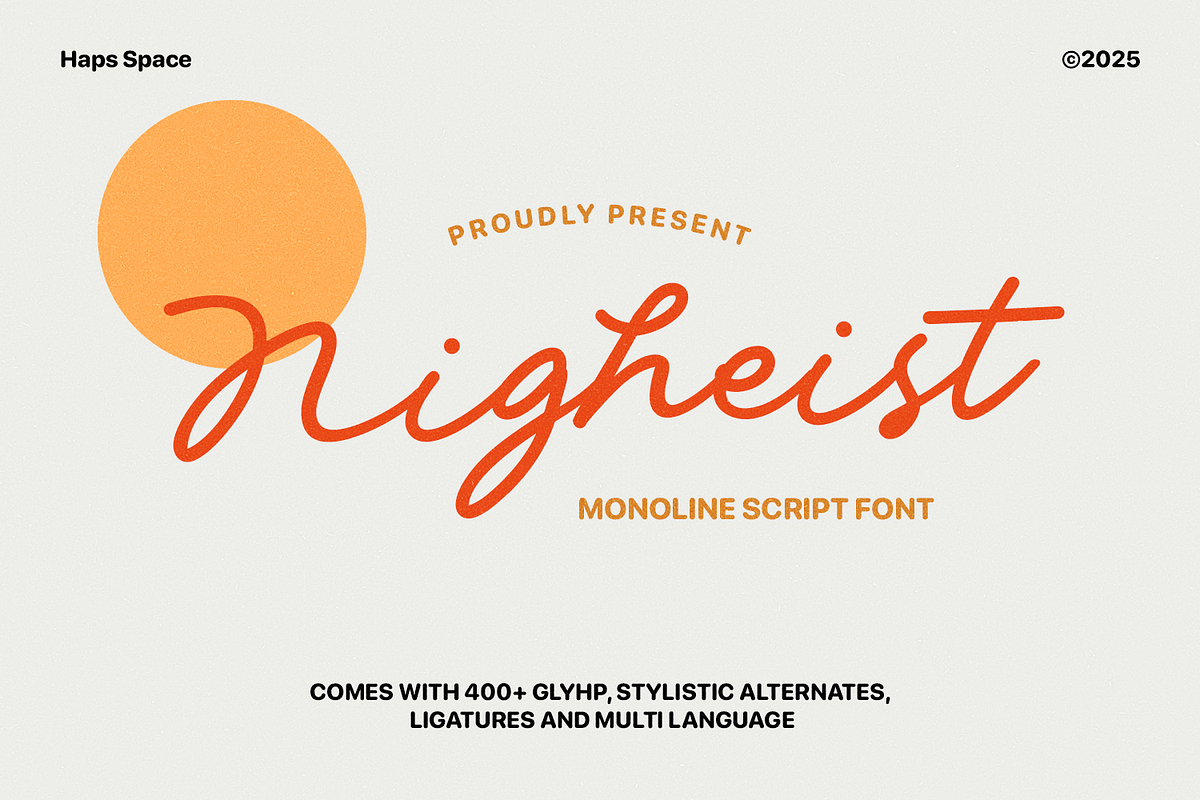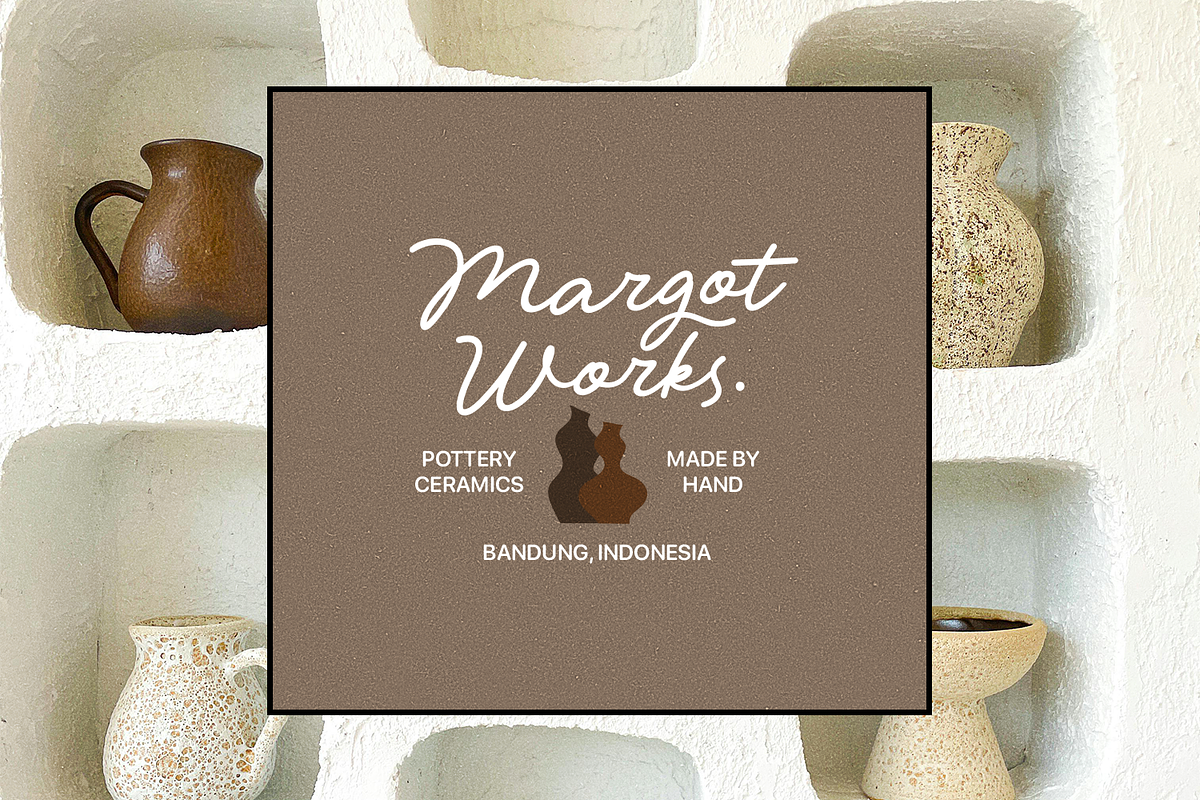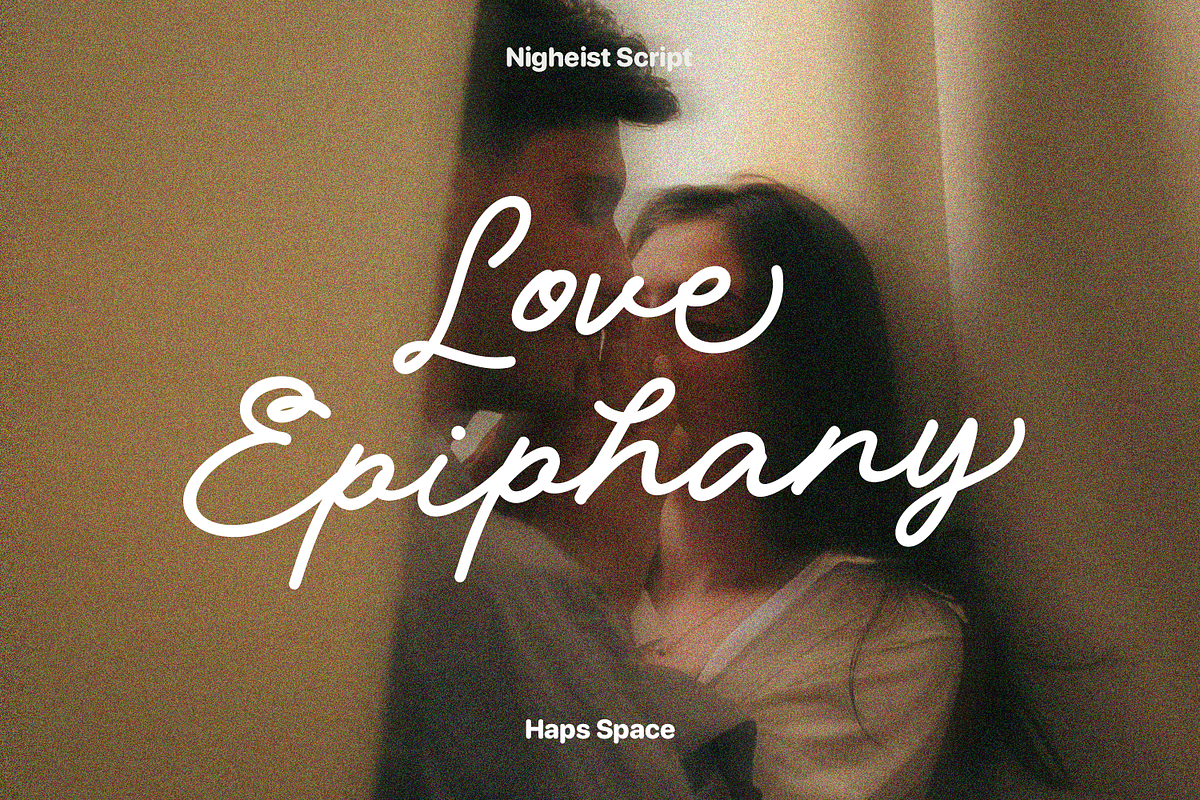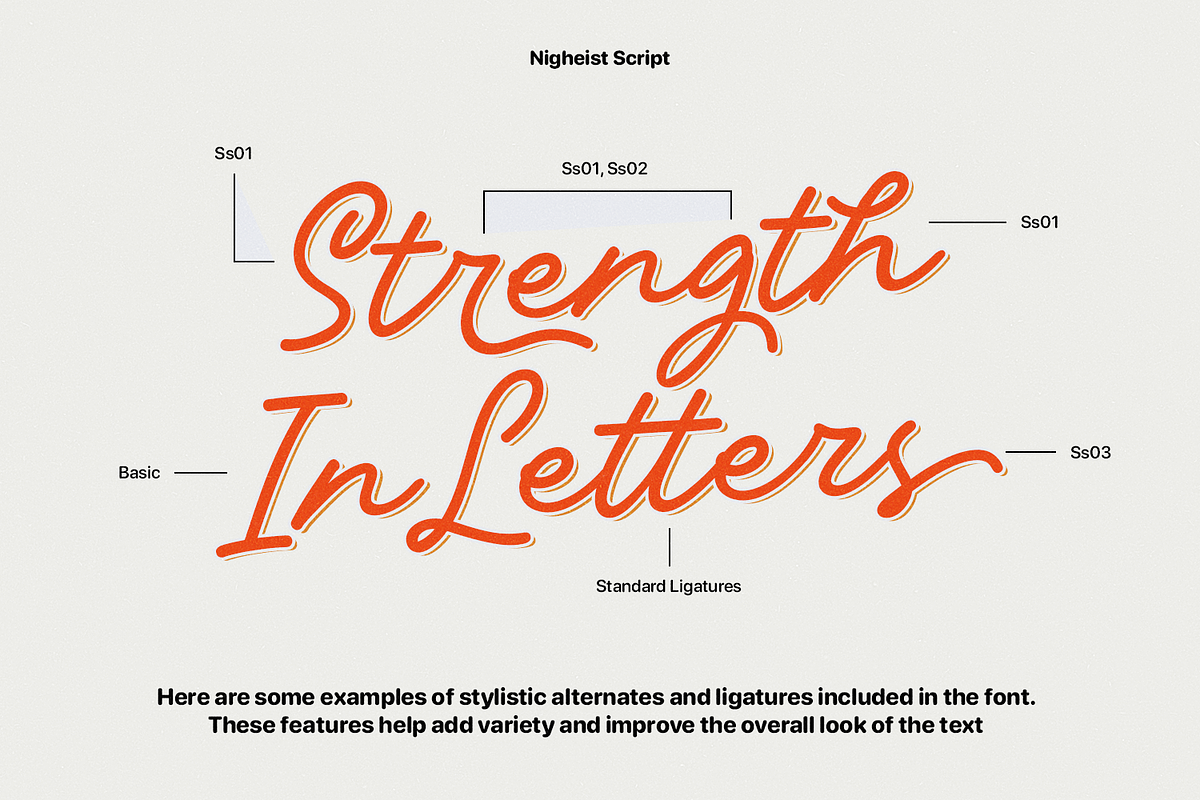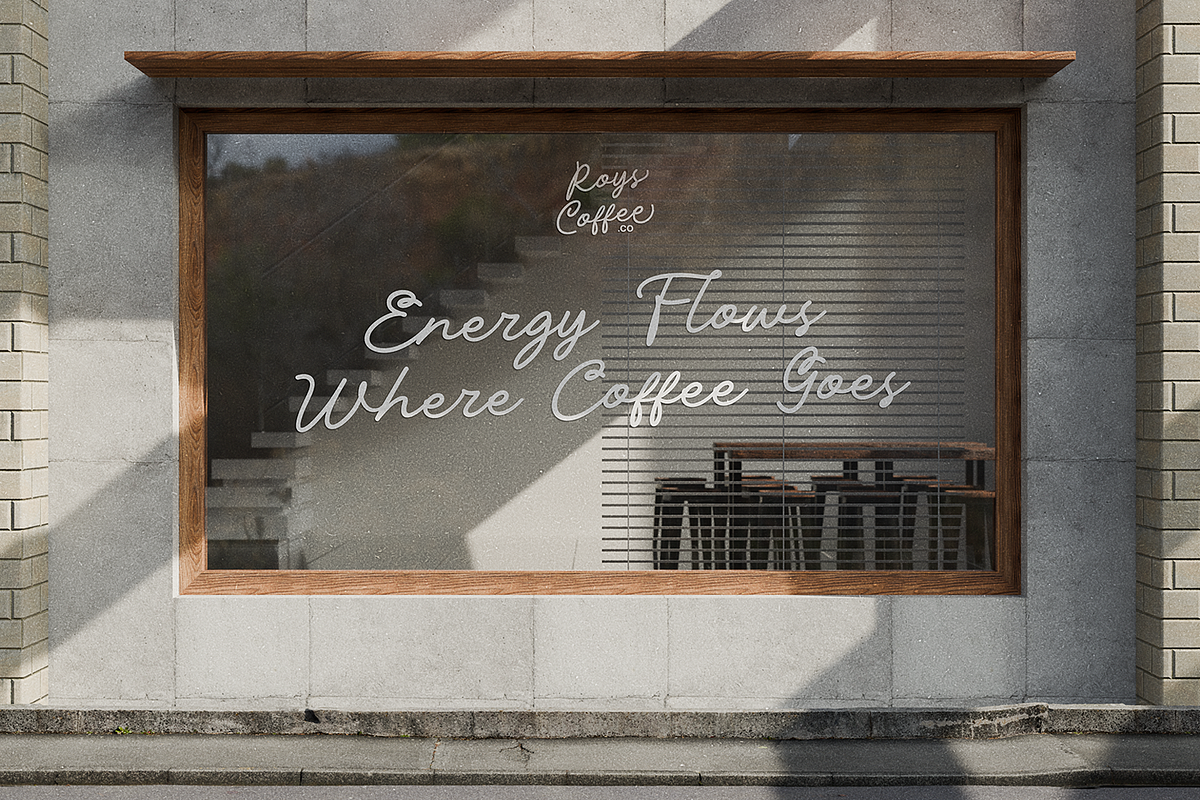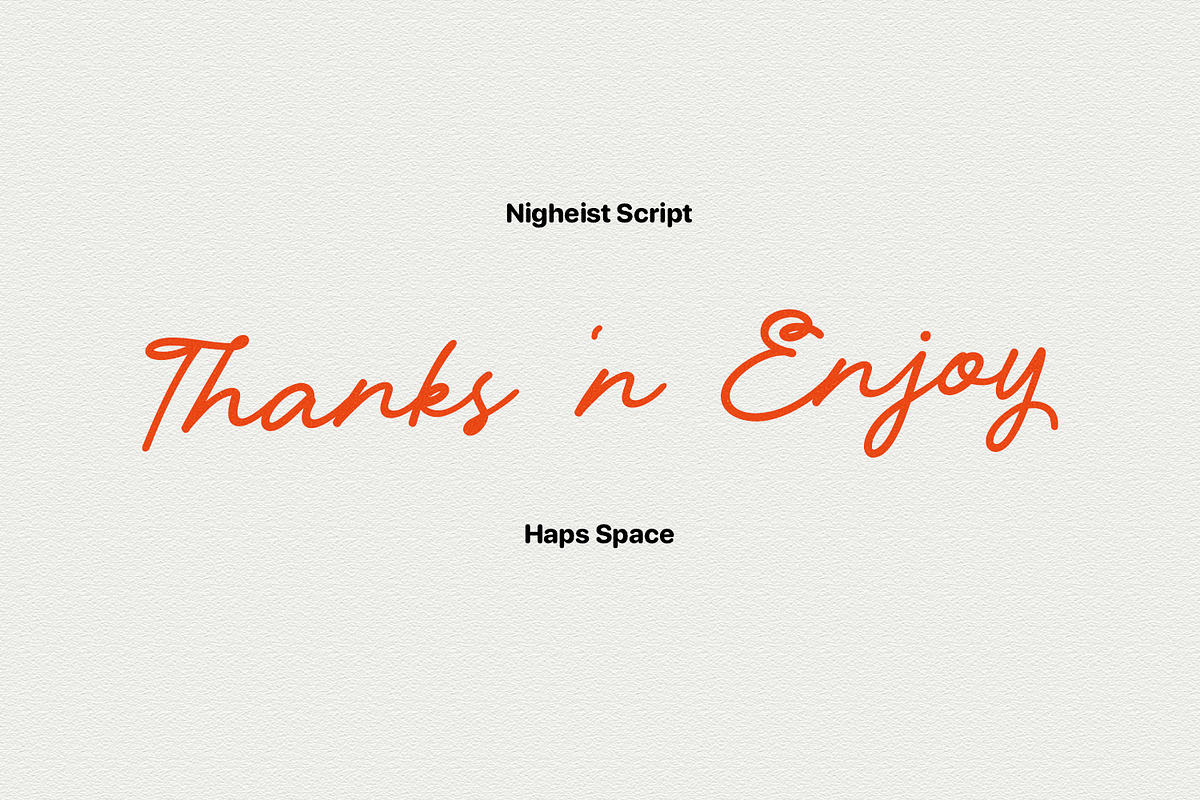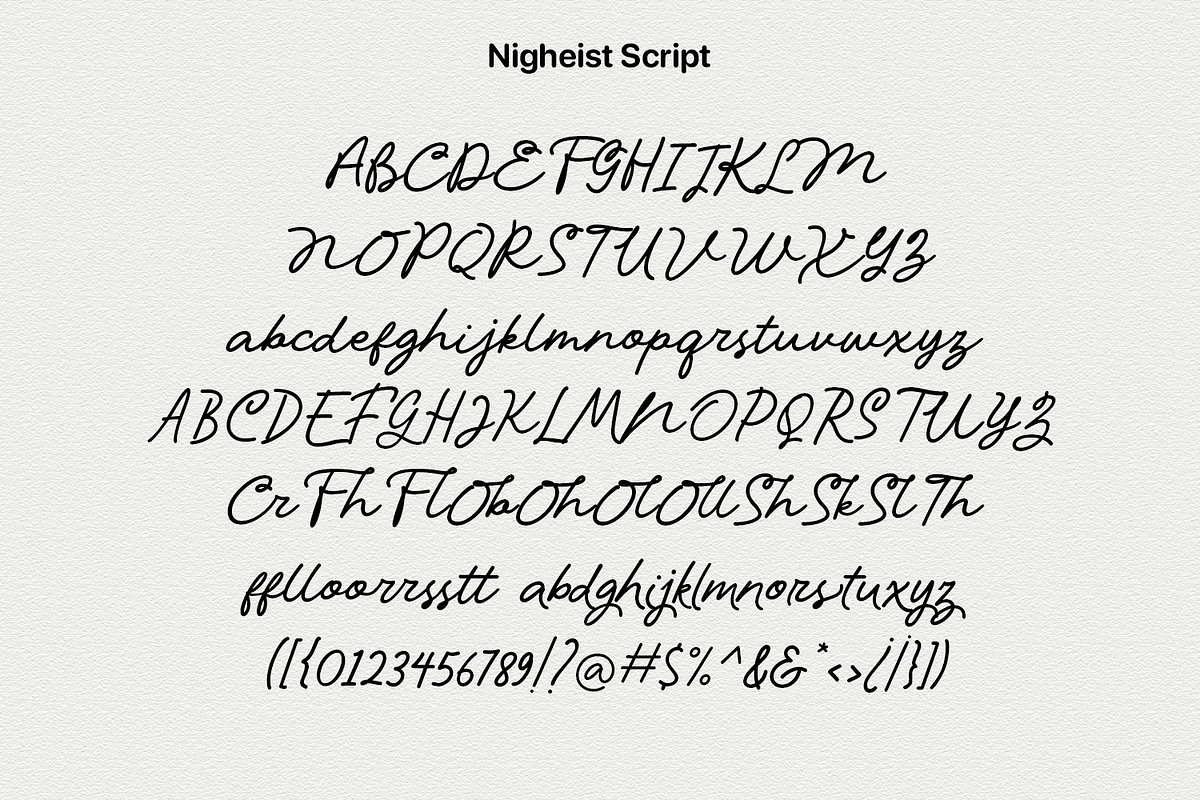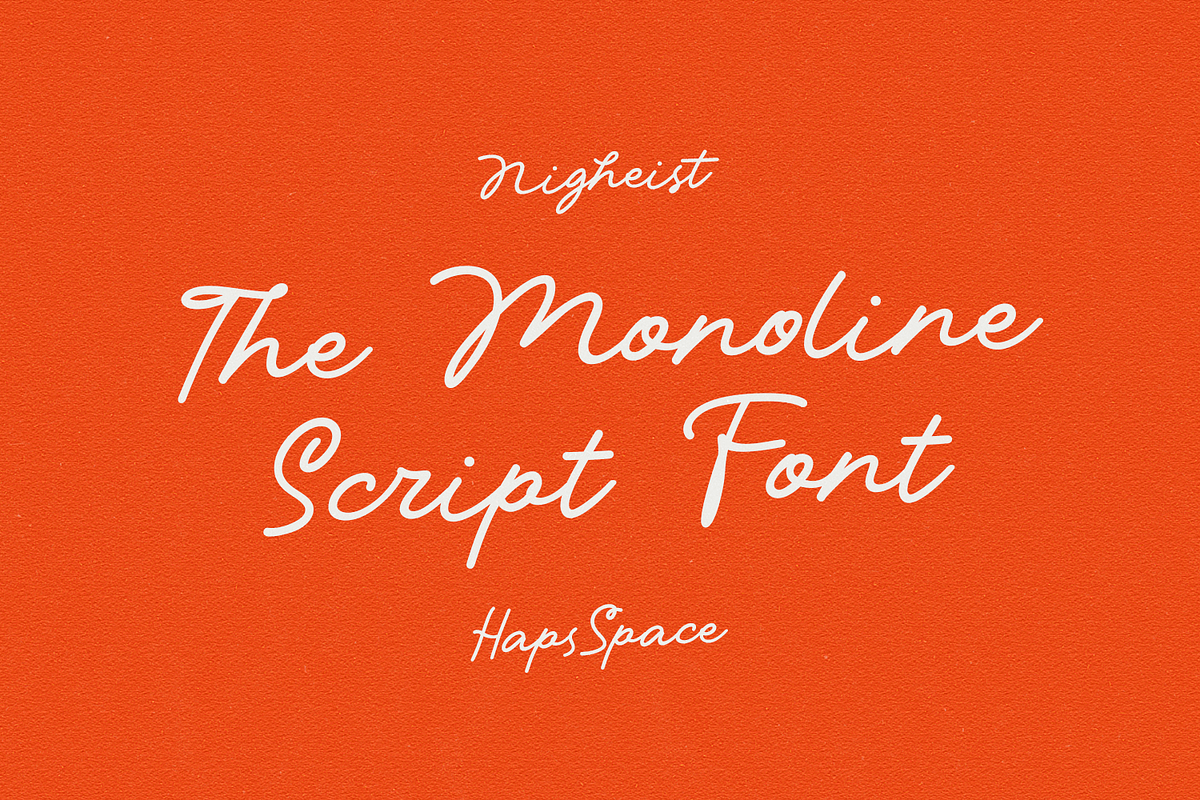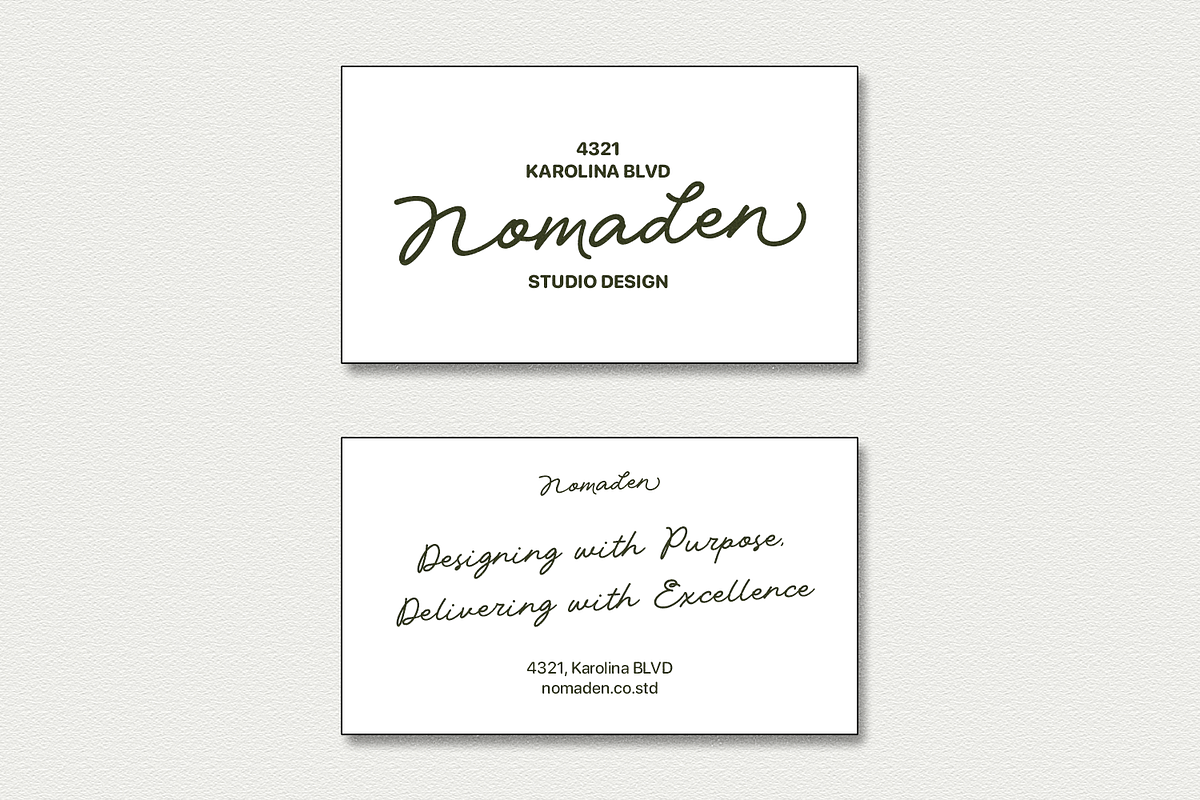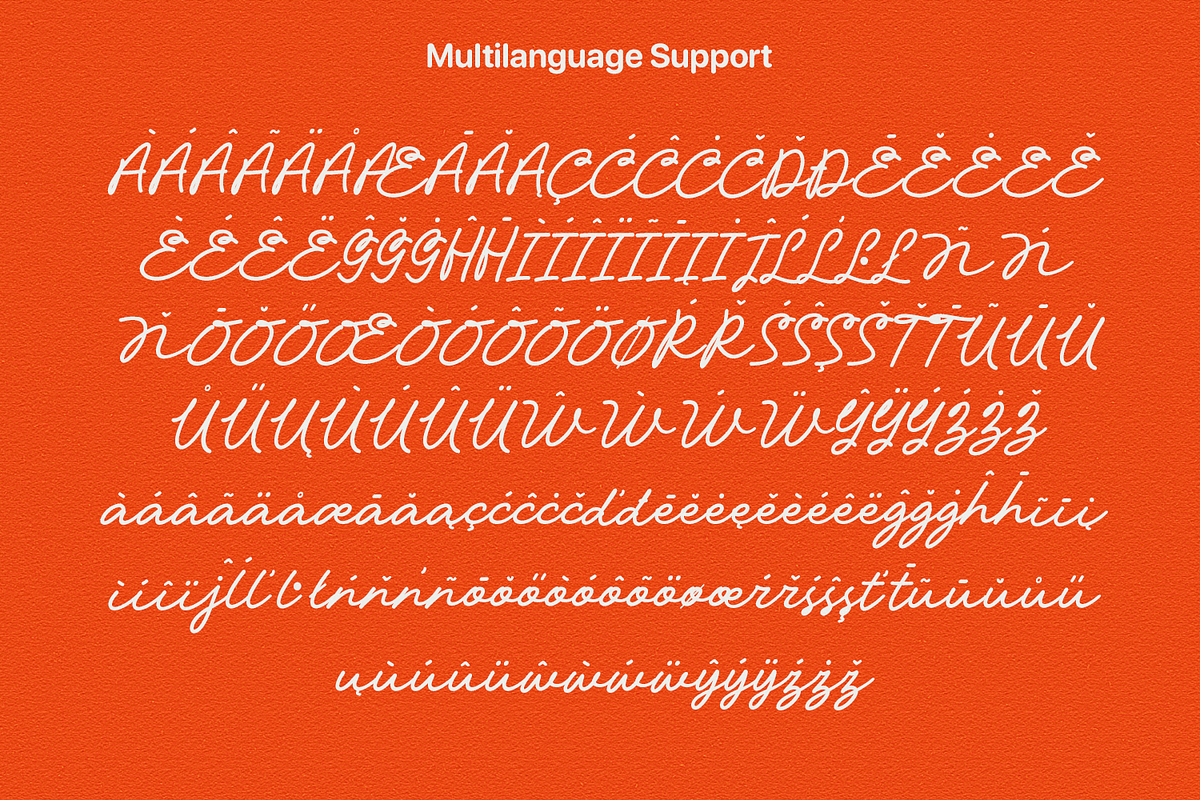
Nigheist - Monoline Script
Nigheist Monoline Handwritten is a modern monoline script font featuring a smooth and elegant handwritten style. Designed with balanced curves and consistent stroke weight, this typeface offers a clean and contemporary appearance suitable for various creative applications.
Ideally suited for branding, packaging, logotypes, editorial layouts, and social media graphics. Its refined handwritten appearance adds a personal yet professional touch, making it an excellent option for both digital and printed creative works.
- Unique Letterforms